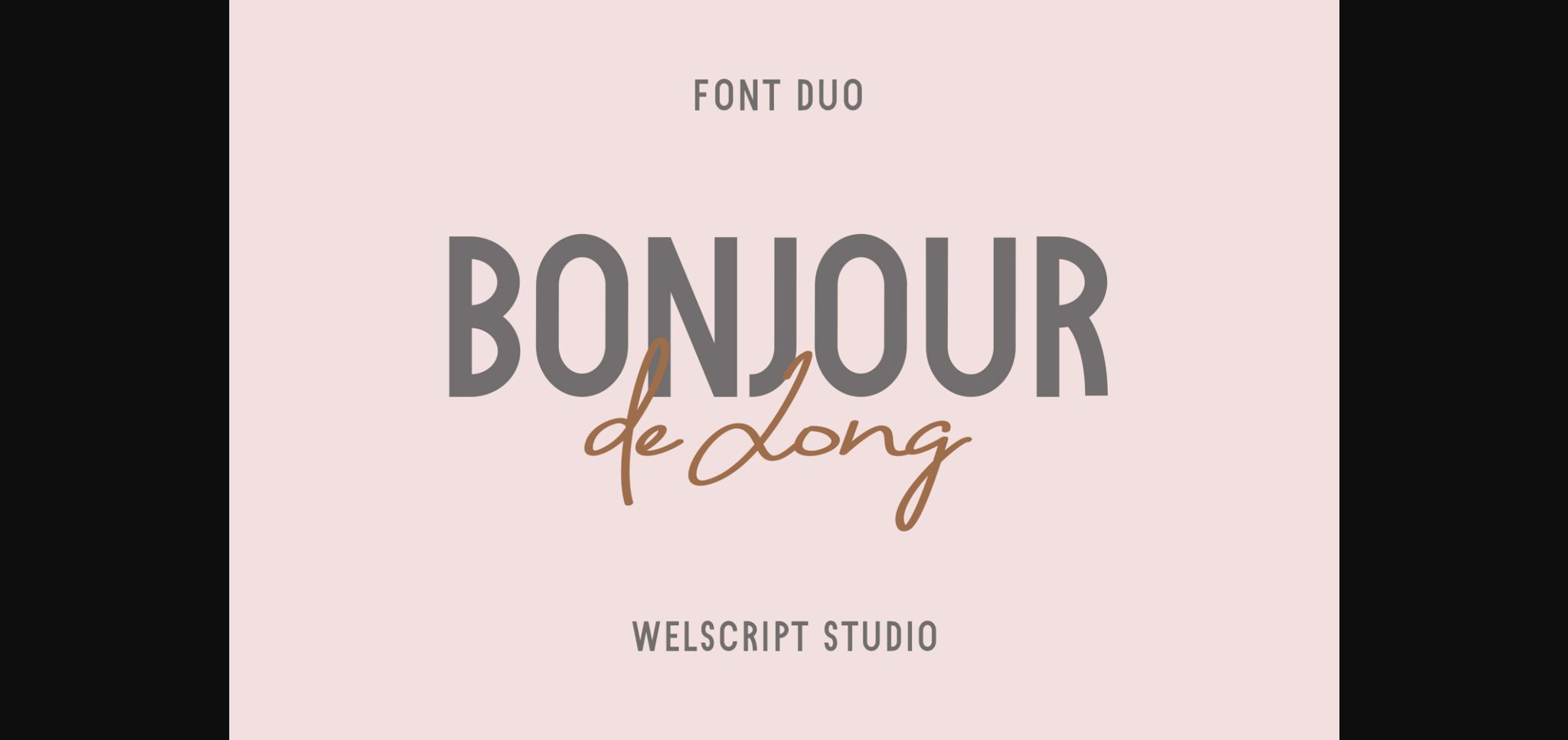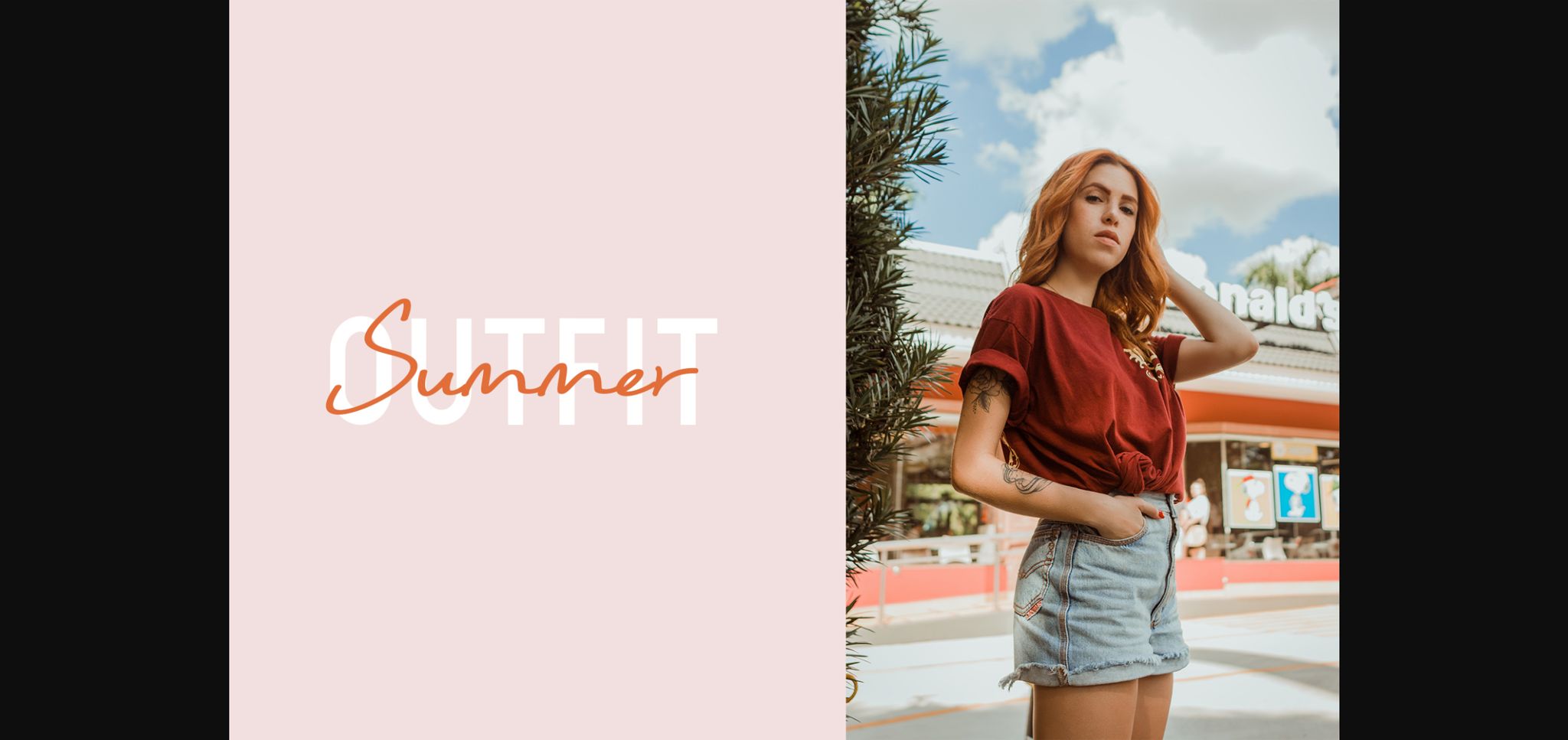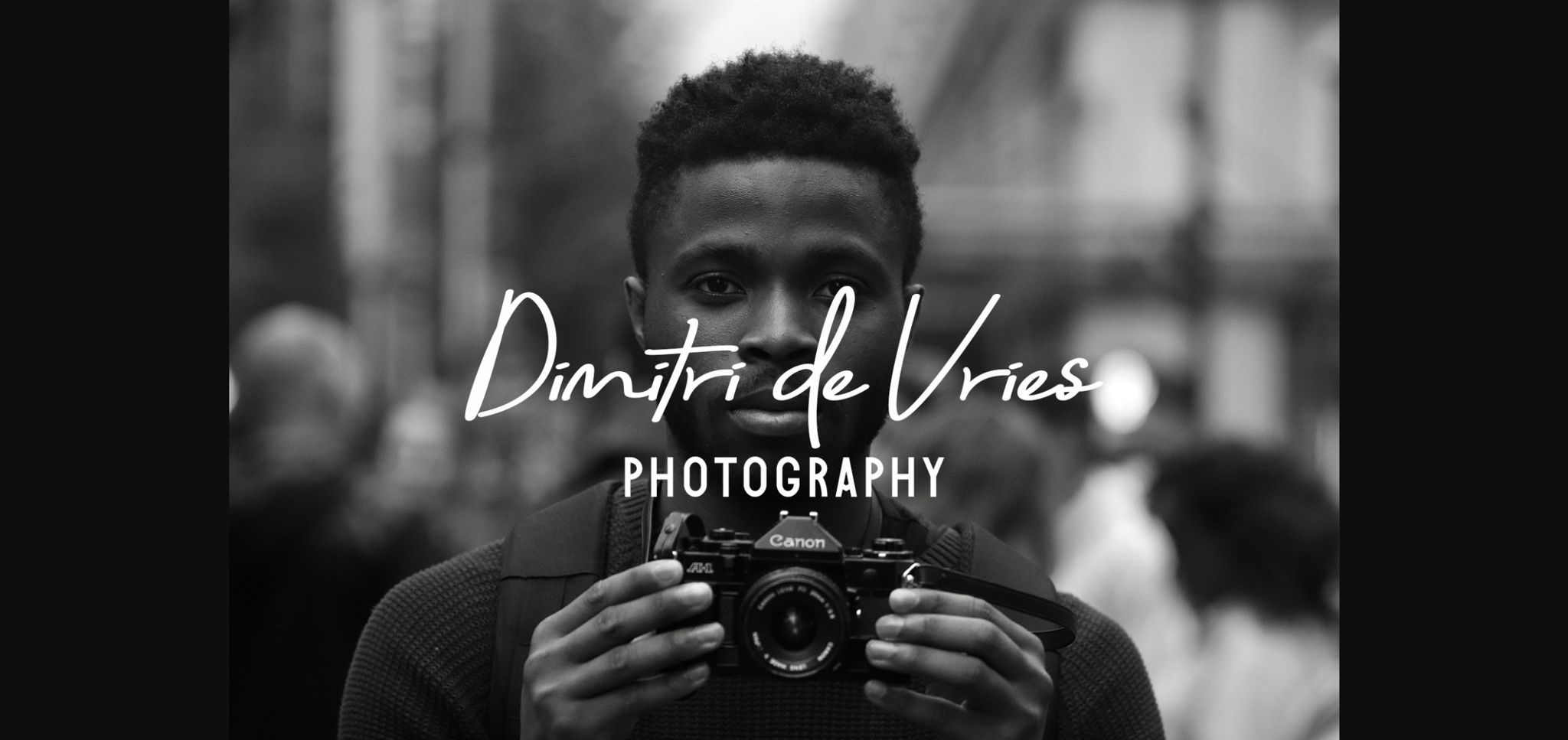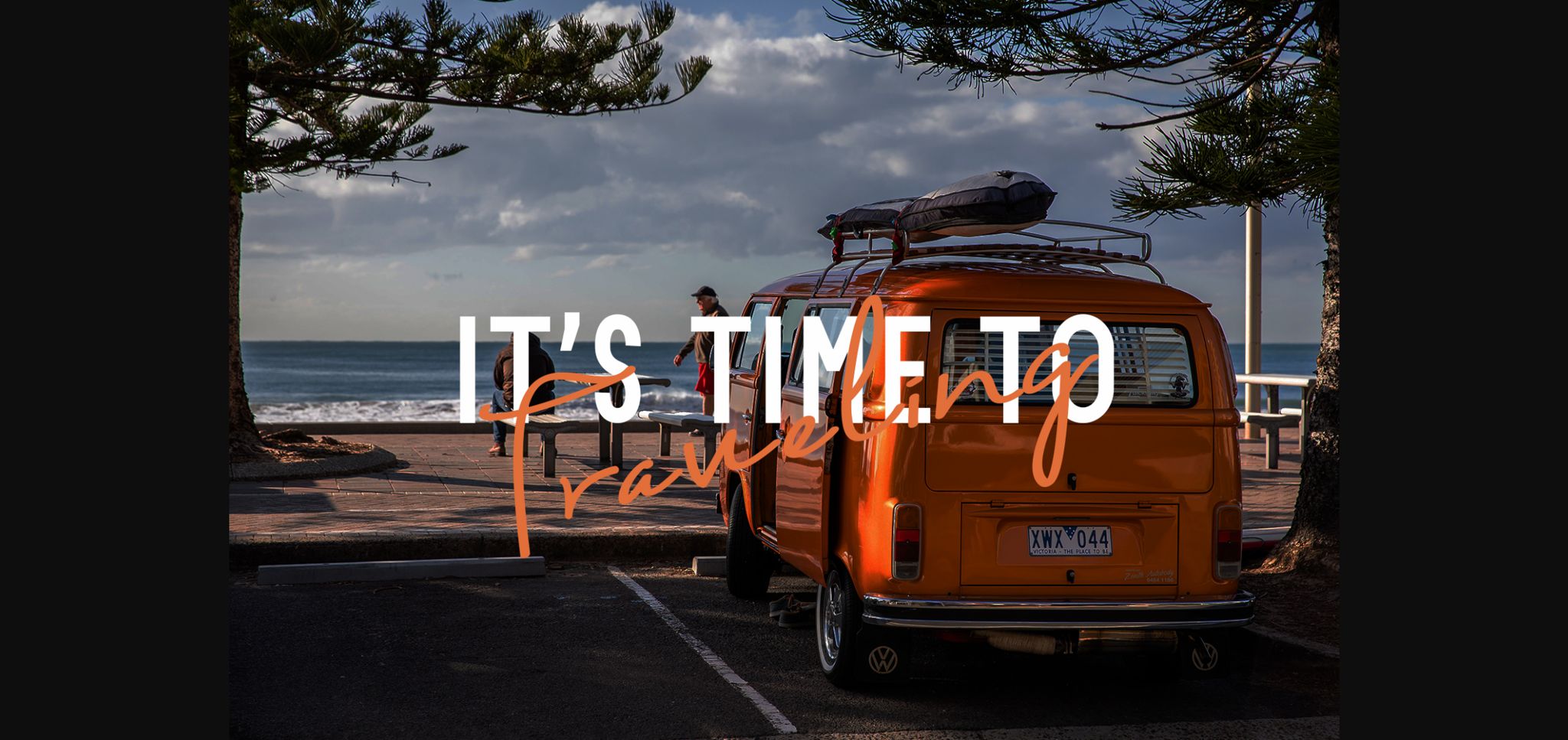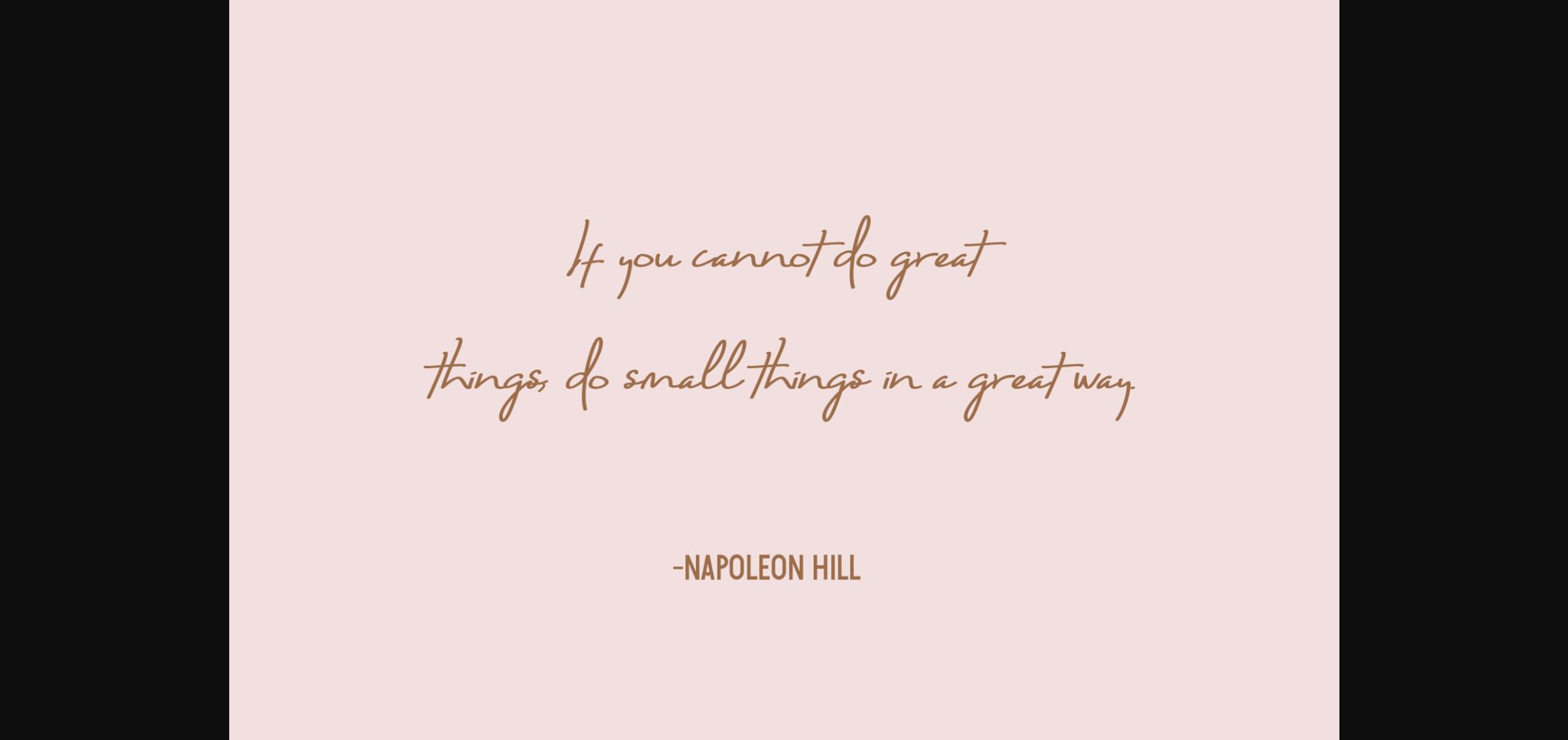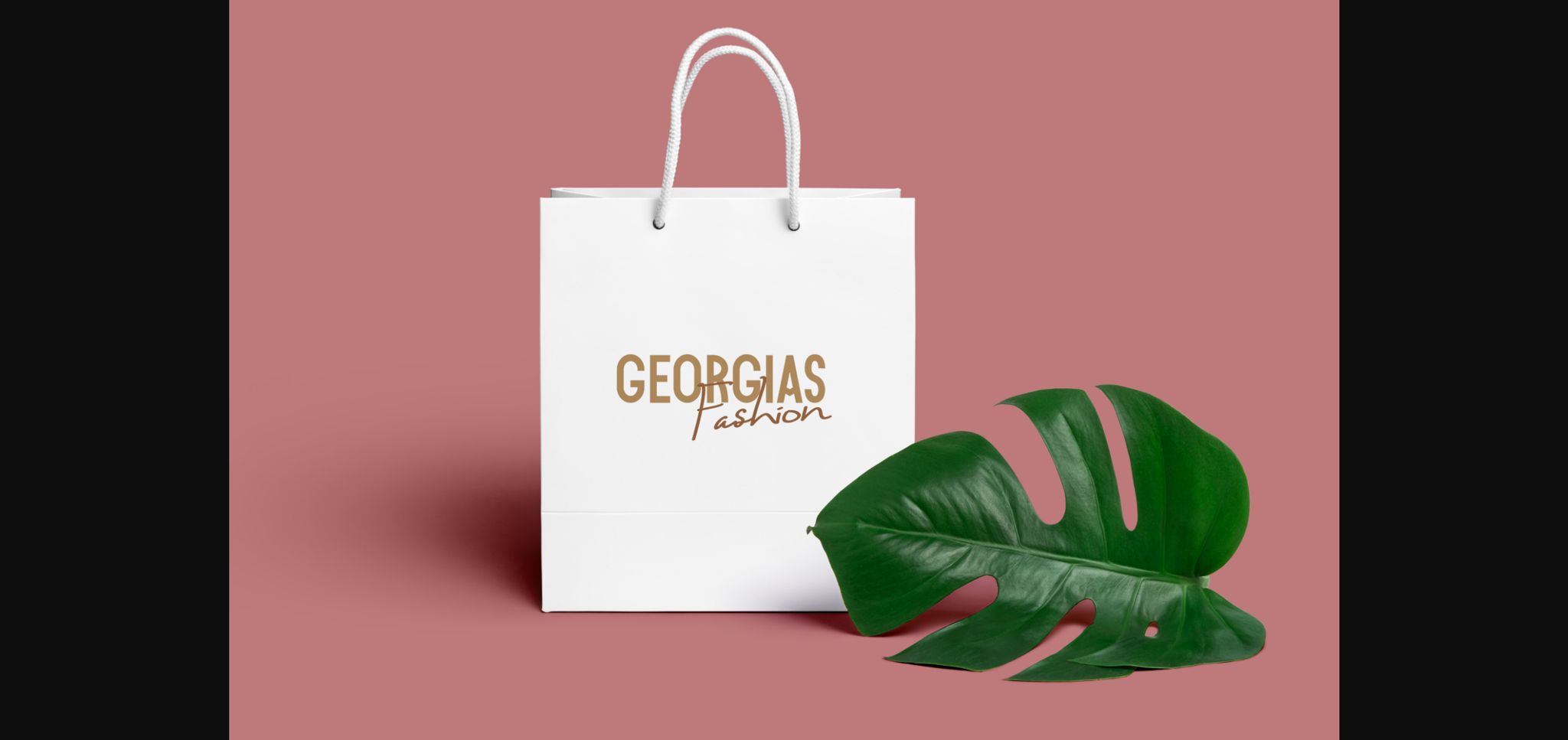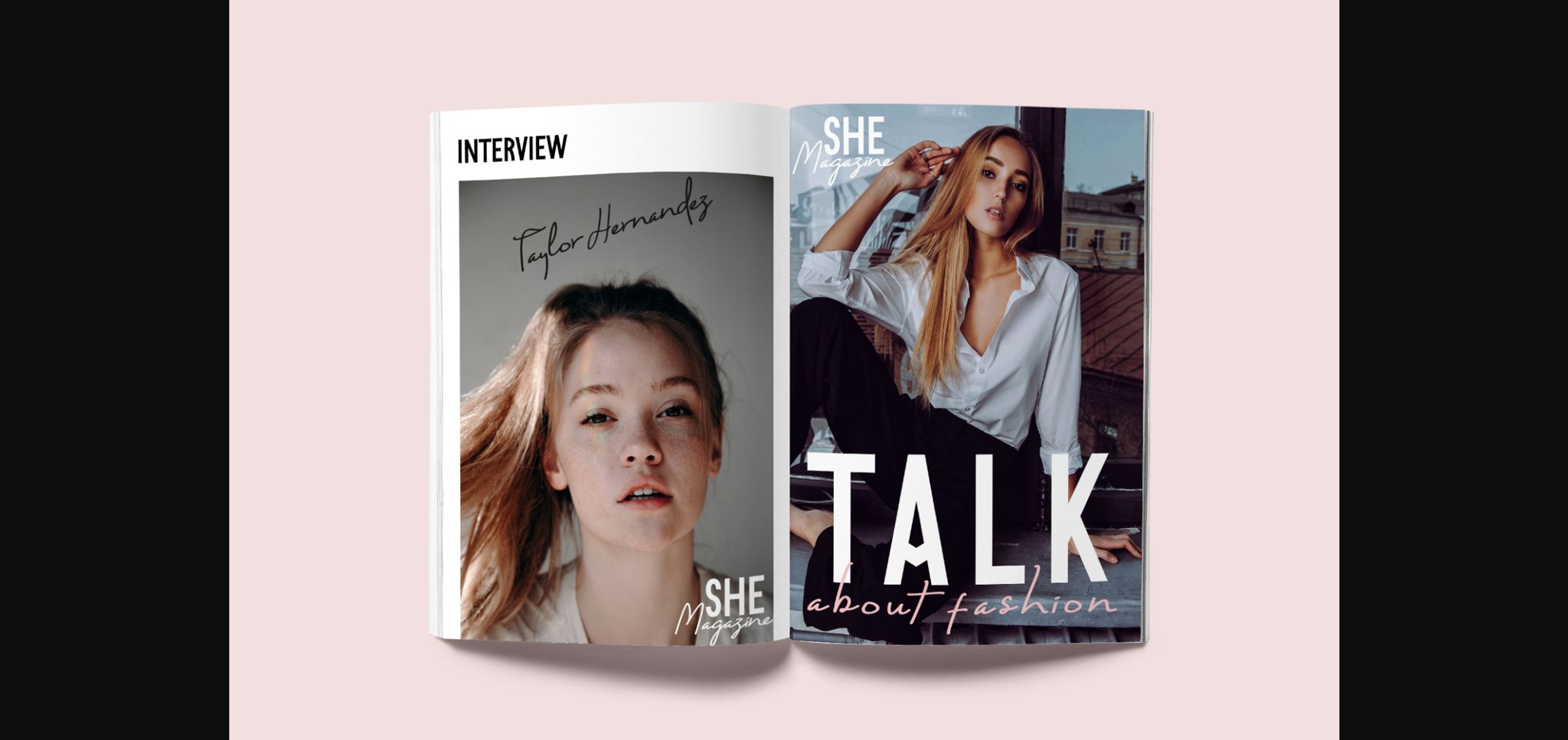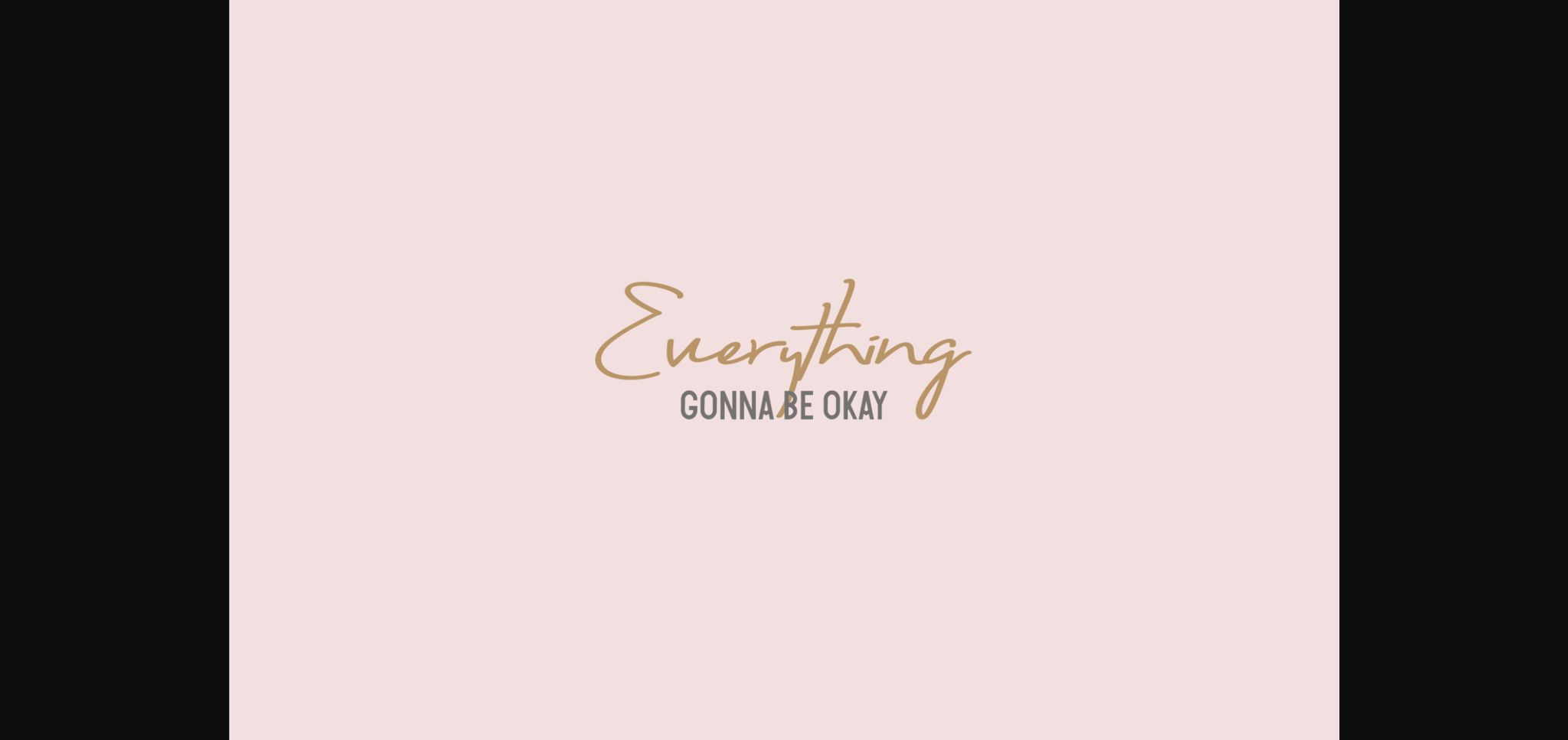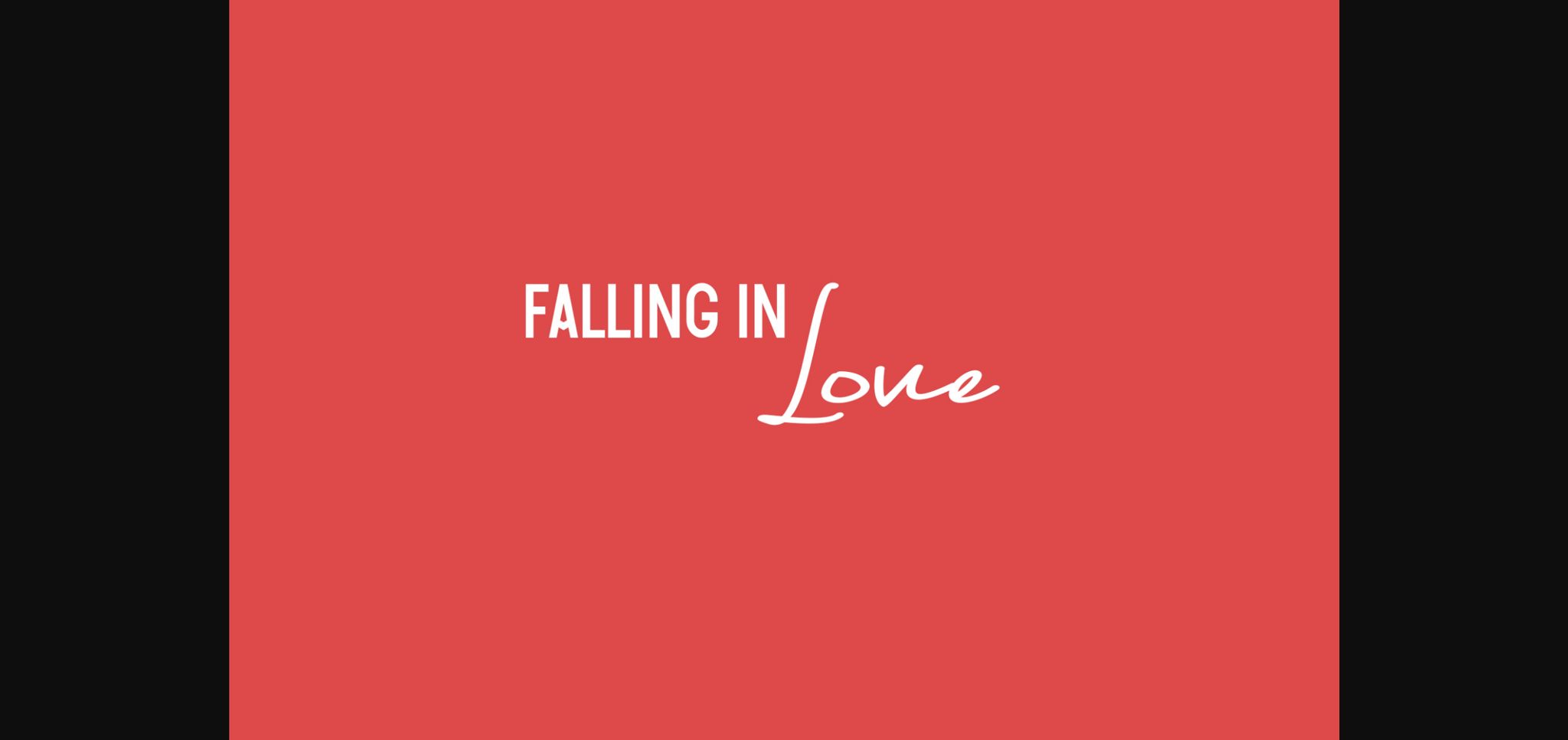
Bonjour De Jong Font
About Bonjour De Jong Font
Bonjour de Jong is a stunning modern duo font. Its gorgeous combination of script and sans serif makes this font incredibly versatile. It looks stunning on wedding invitations, thank you cards, quotes, greeting cards, logos, business cards and much more!